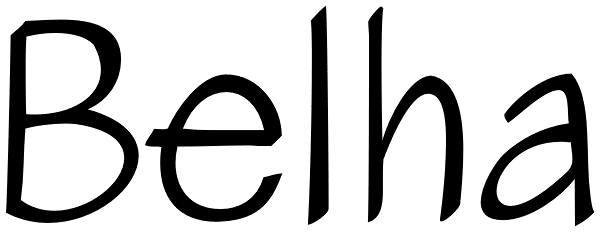
Belha
Sometimes we feel that we need something fresh, sometimes you may use something like an informal style, or even a little bit of spicy taste in a provocative message. Belha is a curly cursive typeface that can express a seductive atmosphere of casual...